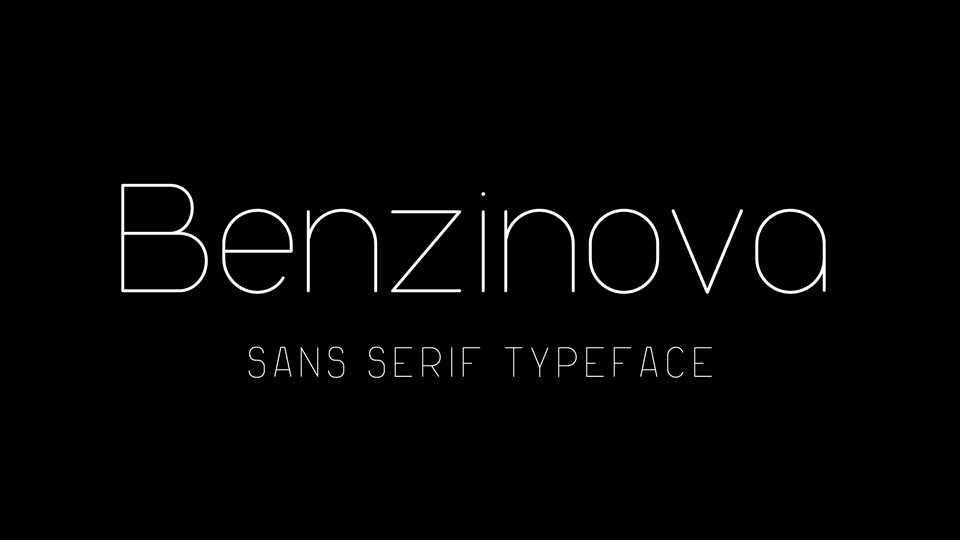
Download Benzinova typeface, a clean minimalist sans serif font family Now availiable Benzinova Thin font in 4 styles, work is in progress.
Designer: Jörn Lund